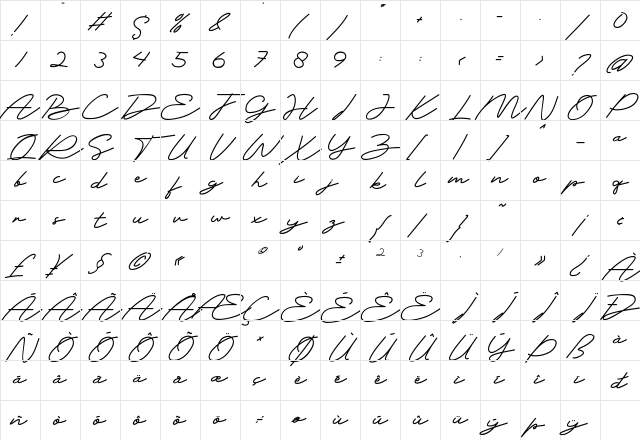
Final Parade Script Regular Free Font
Final Parade Script Regular
Foundry: Putracetol Studio, Karanganyar.
Designer: Putra Novembria Candra Kusuma
Design Context for Final Parade Script
Final Parade Script flows with the natural rhythm of handwritten lettering, making it ideal for designs that call for warmth and personal expression.
Font Pairing: Combine Final Parade Script with a simple geometric sans for maximum contrast - the tension between flowing curves and clean structure is a classic typographic pairing.